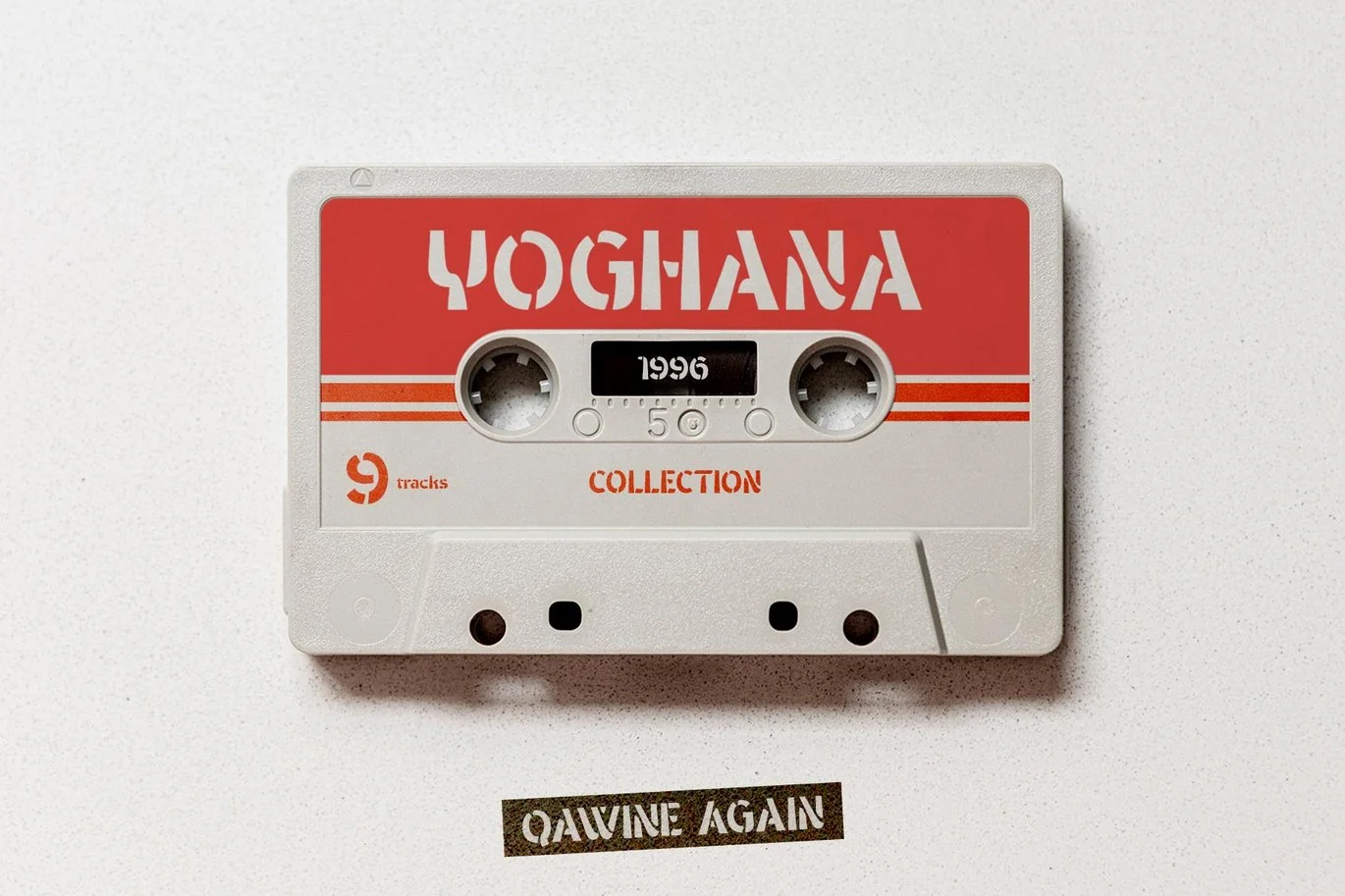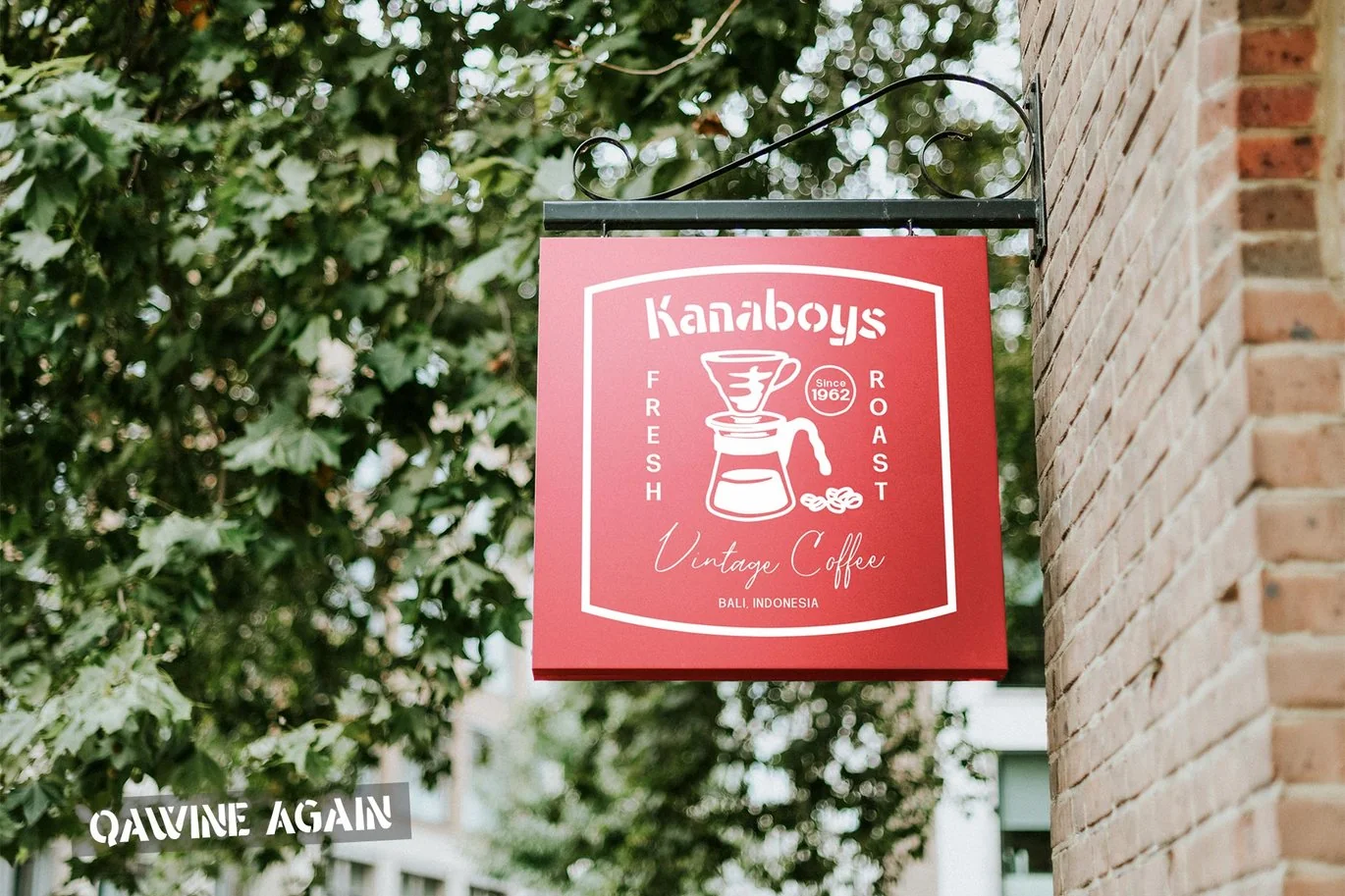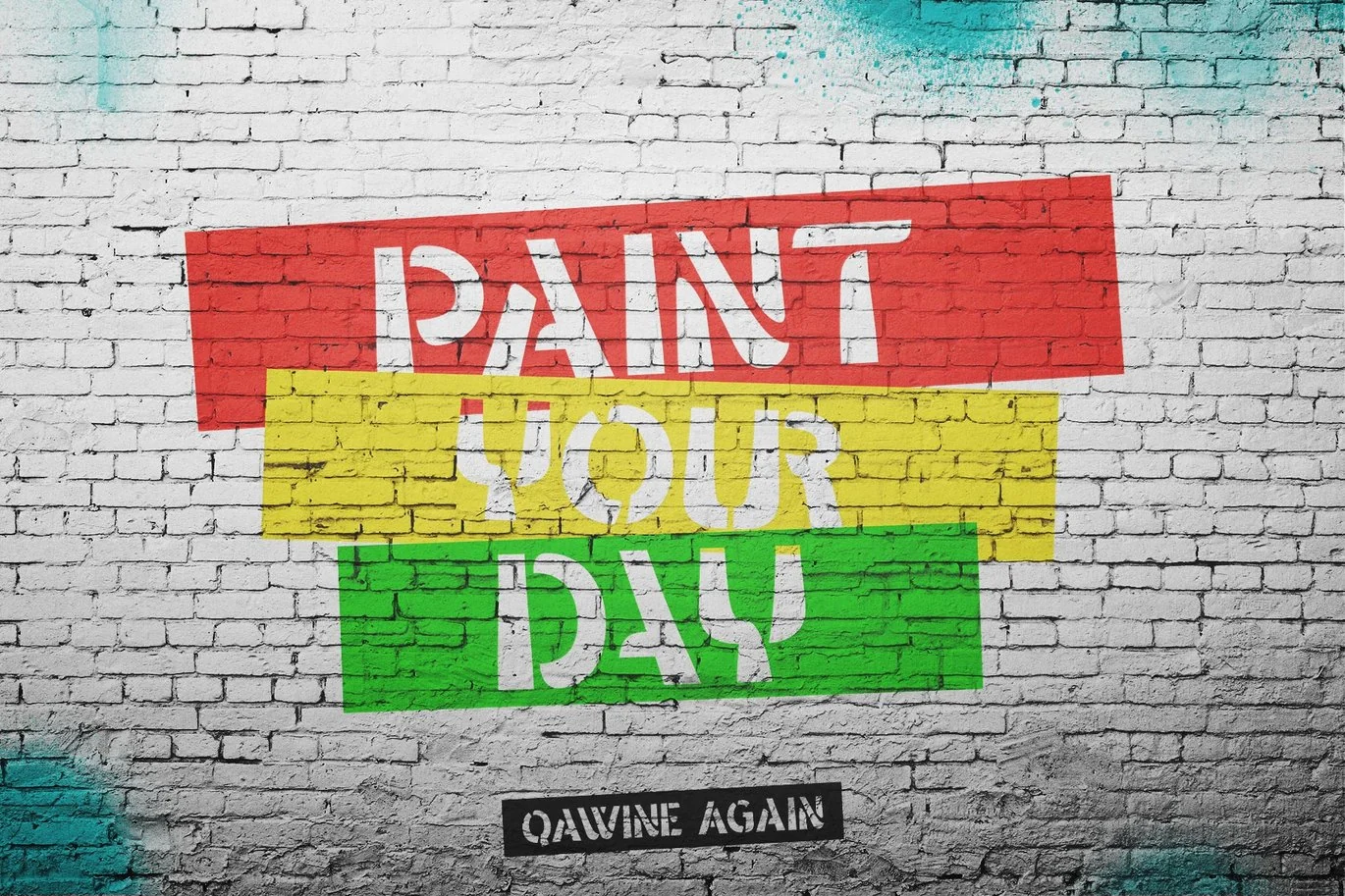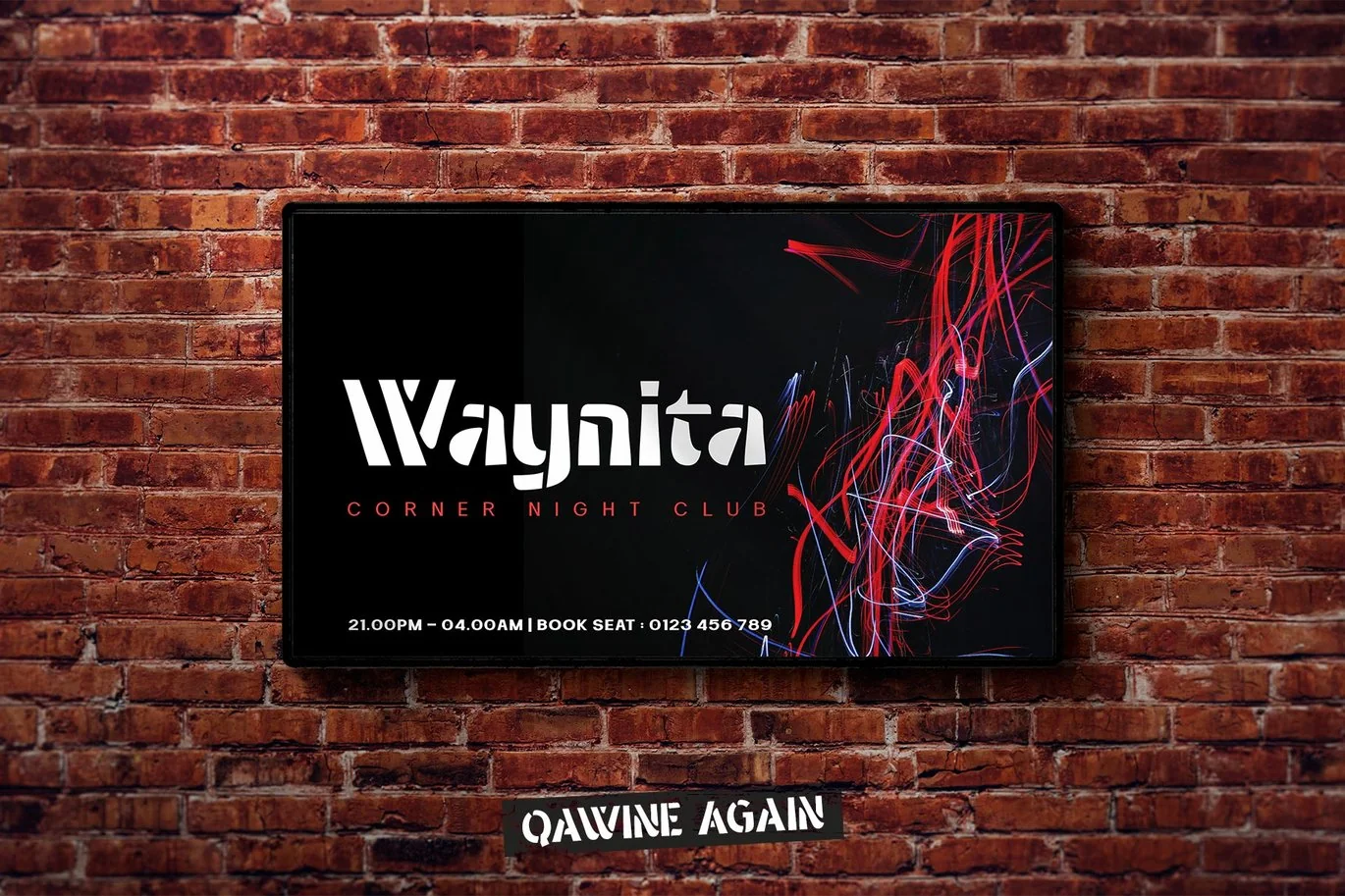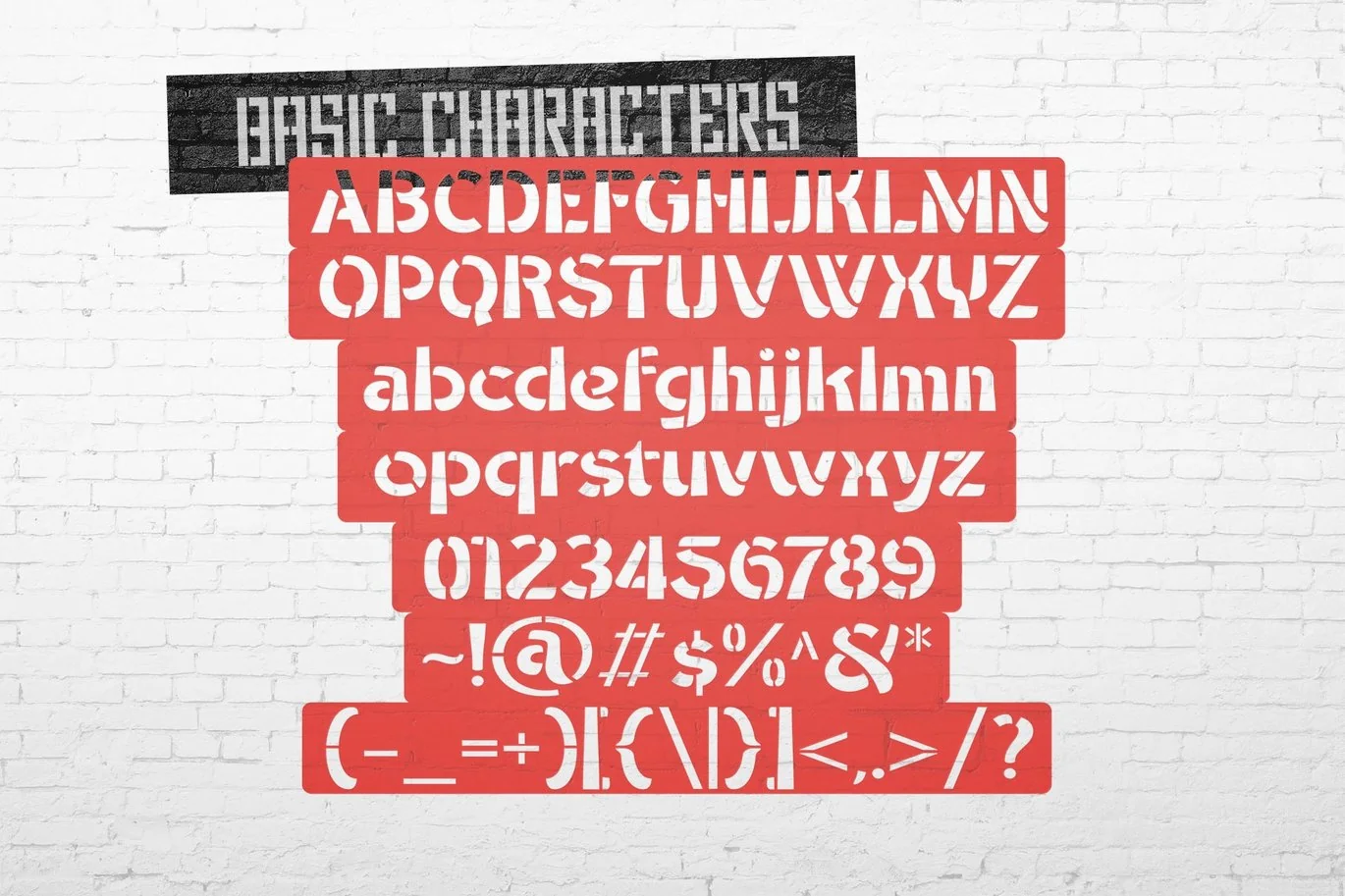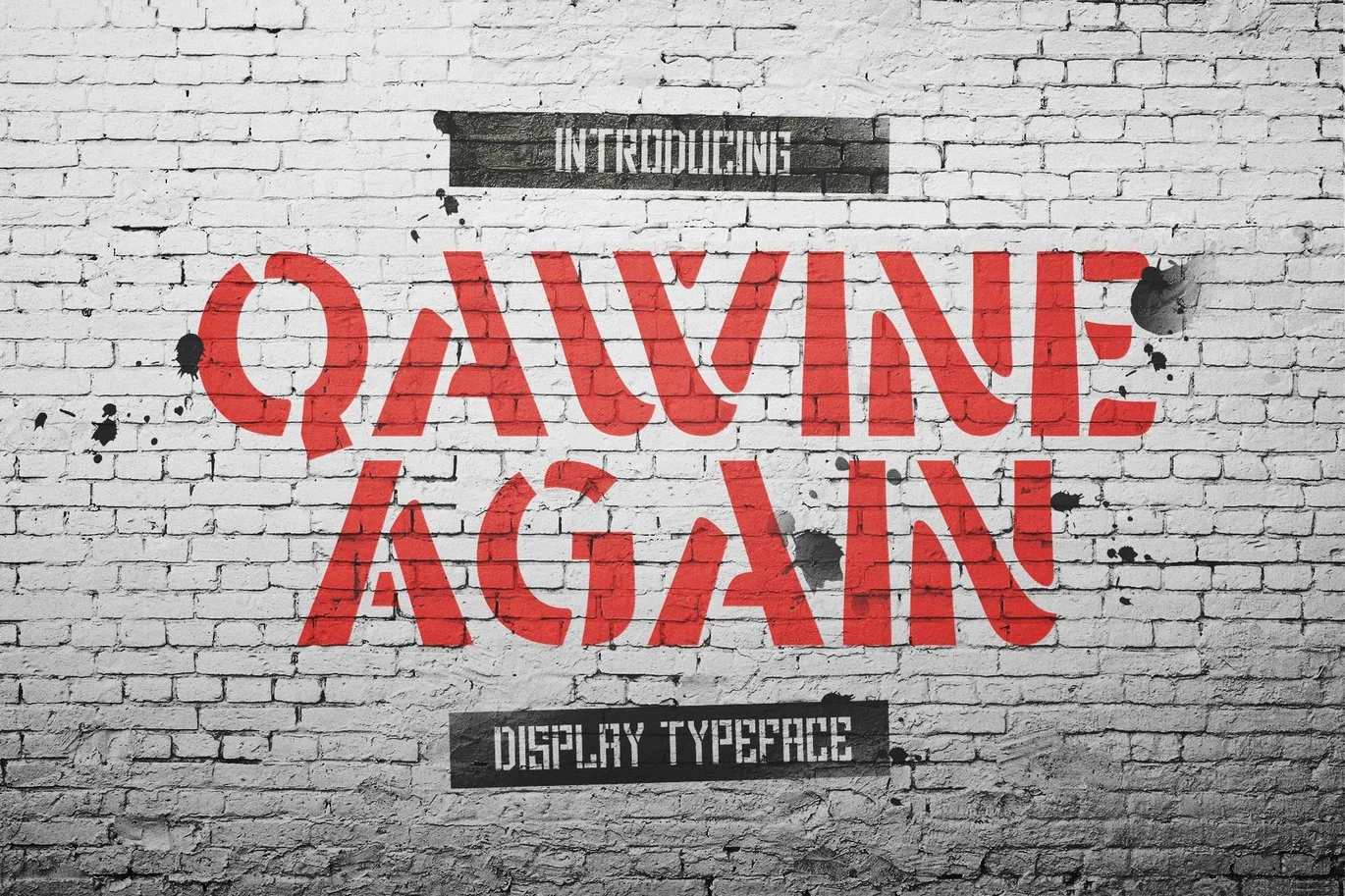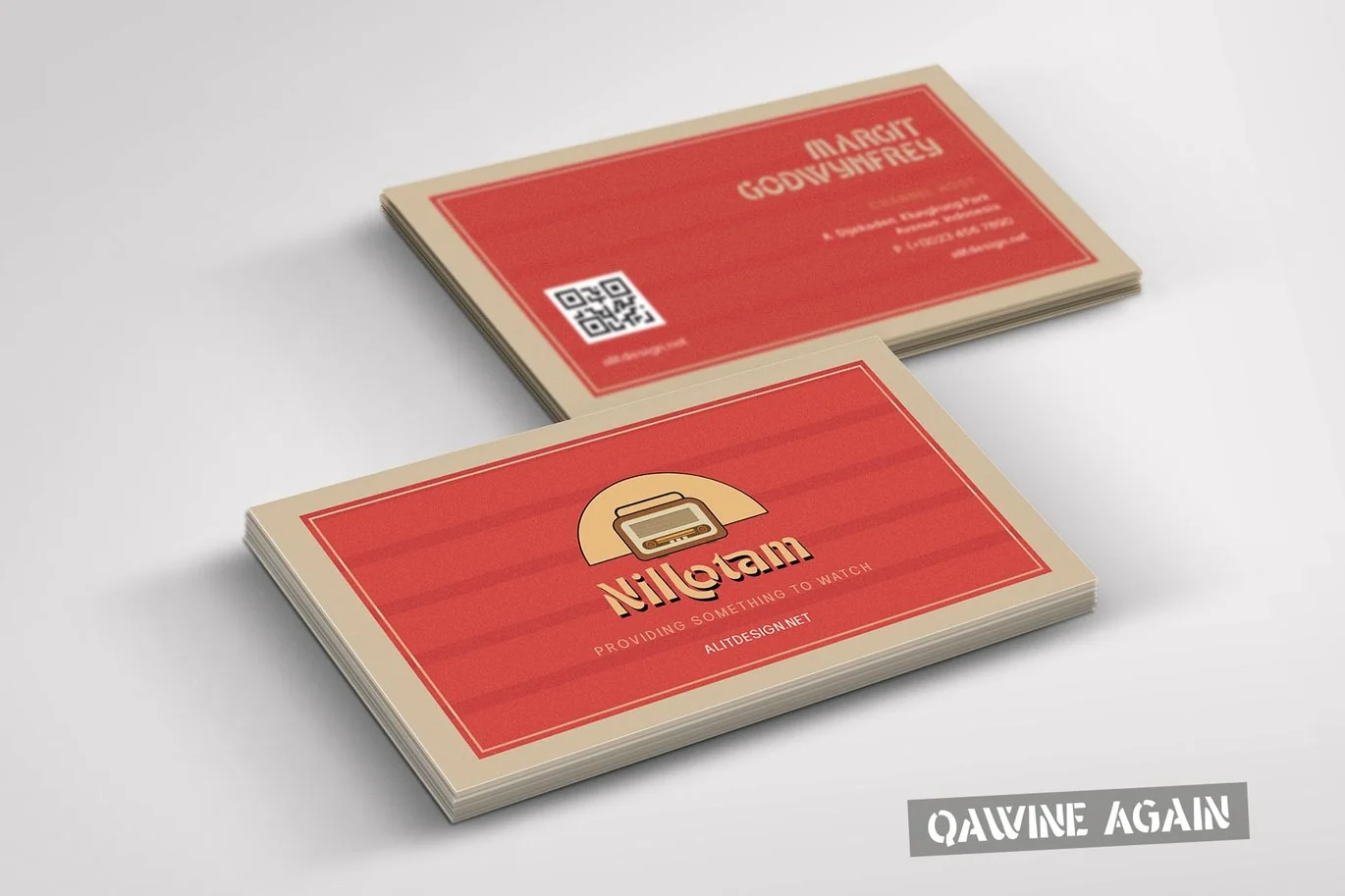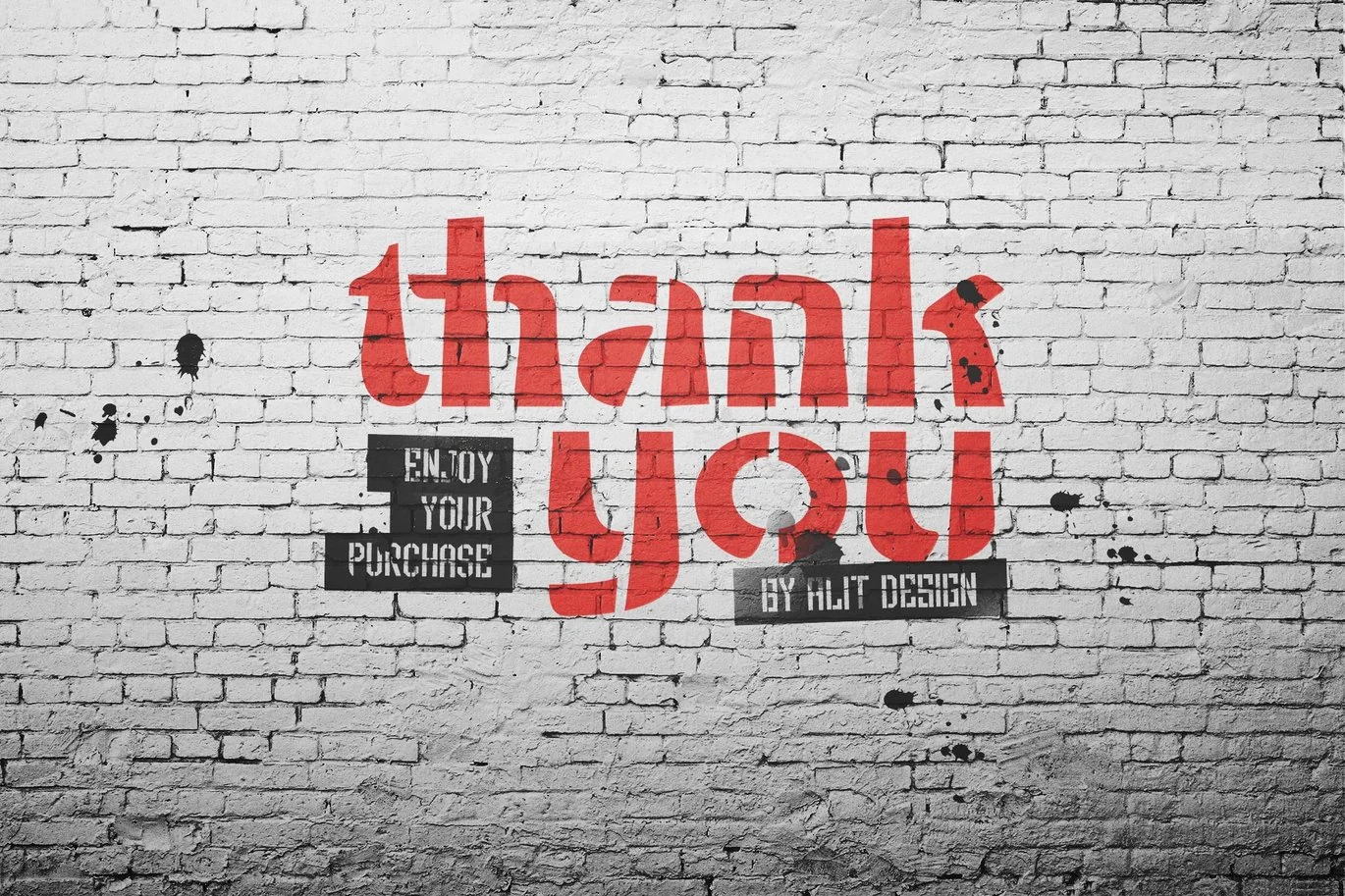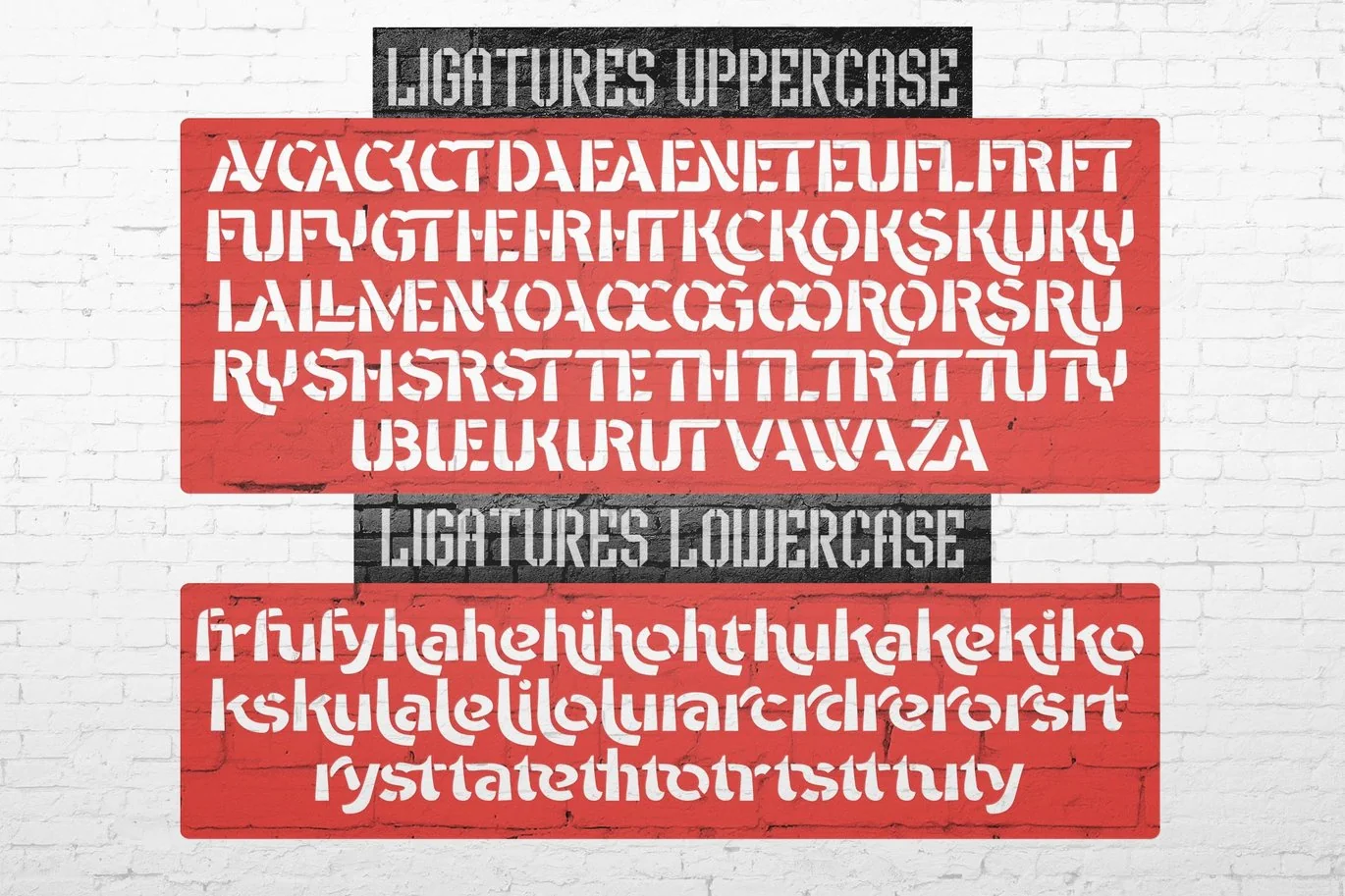
Qawine Again Typeface
Introducing Qawine Again Typeface
The Qawine Again font is designed with a sans serif font concept that has a decorative stencil style. Irregular dynamic shapes but impressively bold and unique make the font “Qawine Again” different and steal attention.
Sans serif typefaces such as “Qawine Again” are very easy to apply to any design, especially those with an retro and classic, army and retro concept, besides that this font is very easy to use both in design and non-design programs because everything changes and glyphs are supported by Unicode (PUA).
The “Qawine Again”contains 618 glyphs with many unique and interesting alternative options.
Language Support :
Latin, Basic, Western European, Central European, South European,Vietnamese,